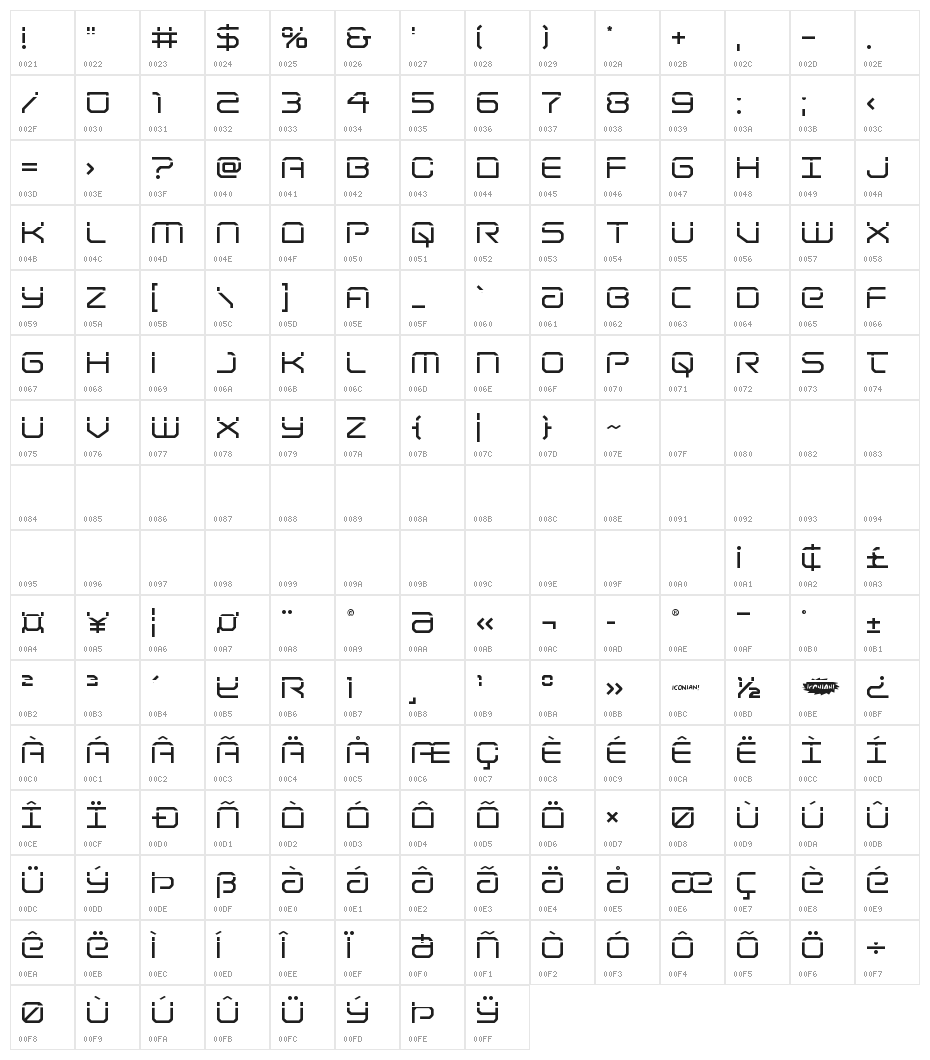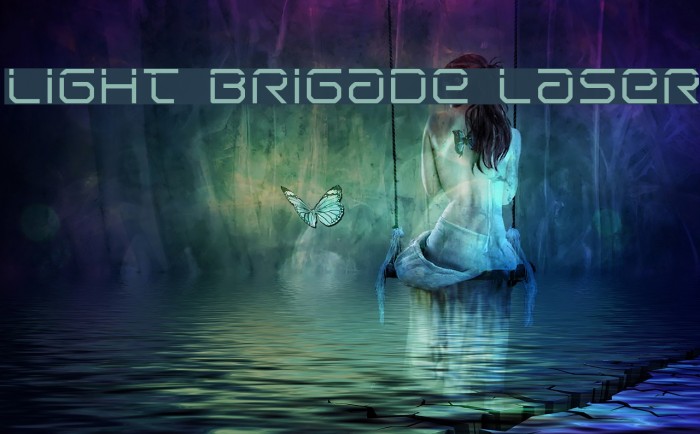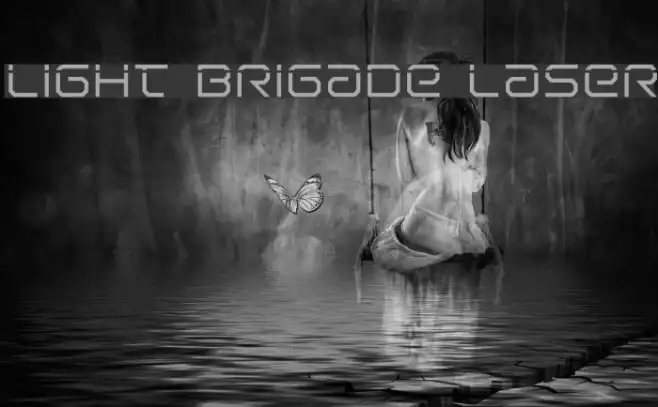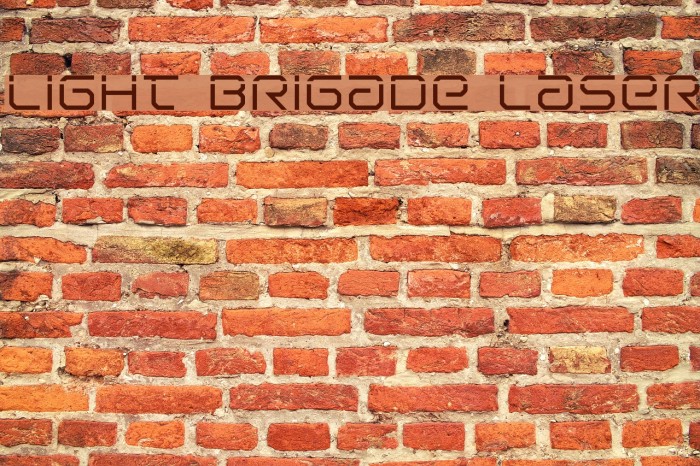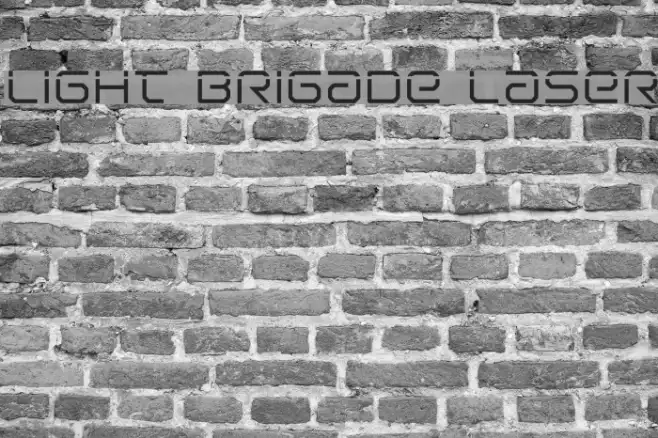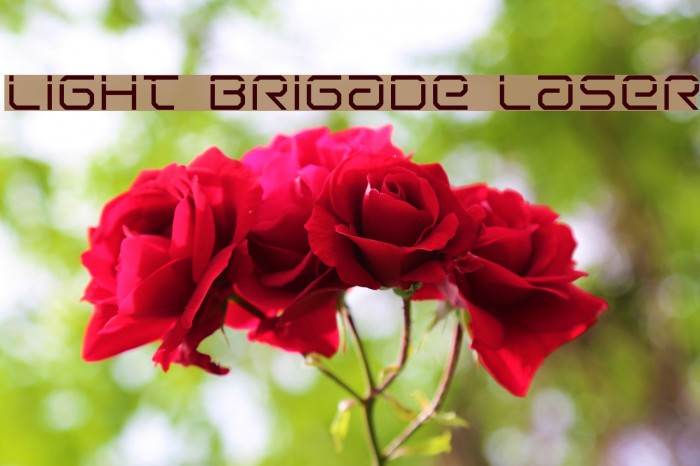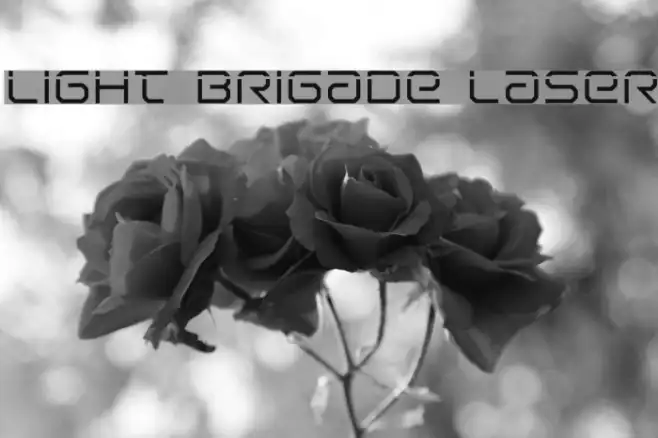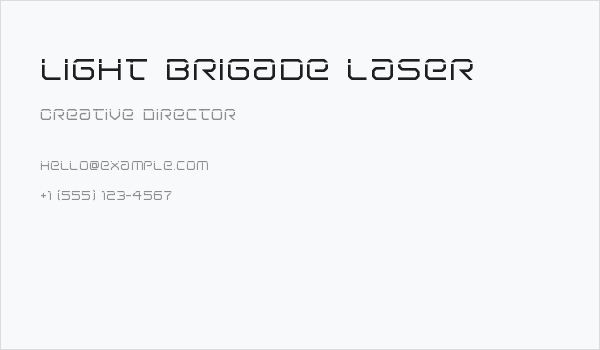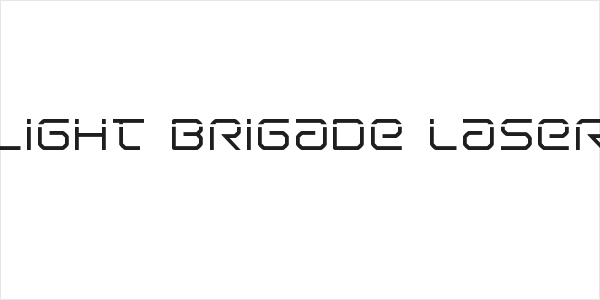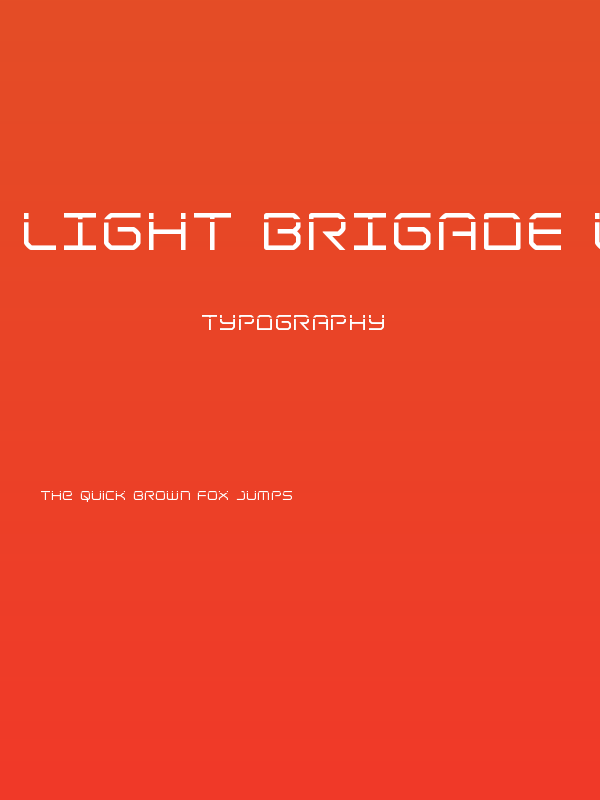
Light Brigade Laser Font
Light Brigade Laser Description
This font features a futuristic and geometric design, characterized by its angular and precise letterforms. The characters are constructed with straight lines and sharp corners, giving it a technical and modern appearance. The uppercase and lowercase letters maintain a consistent style, with a uniform height and width that enhances readability. The numerals and special characters follow the same design principles, ensuring a cohesive look across all glyphs. This font's unique style makes it ideal for projects that require a contemporary and tech-savvy aesthetic.